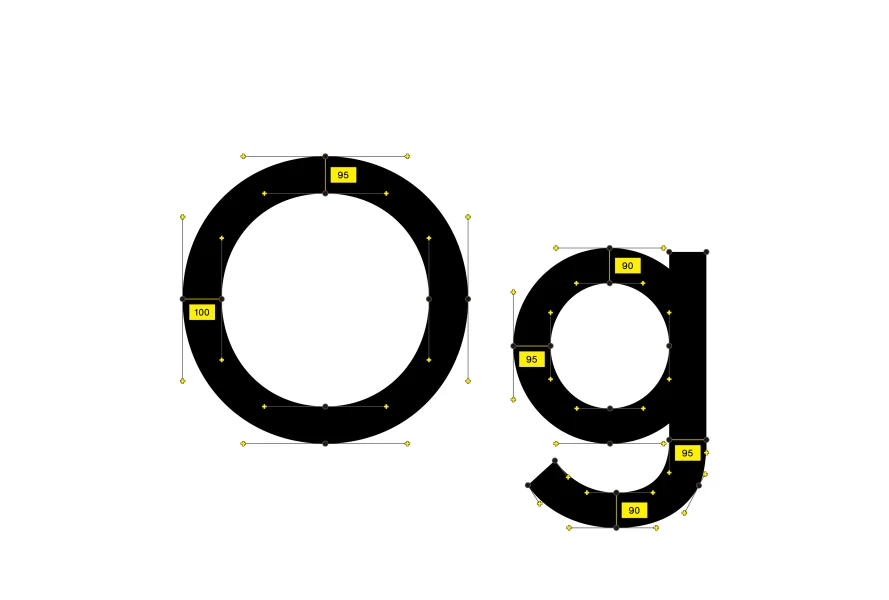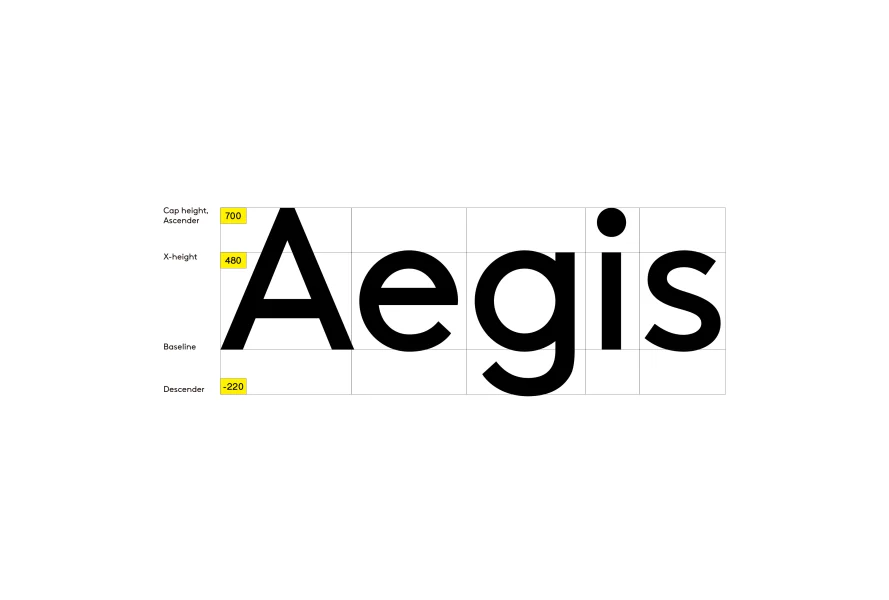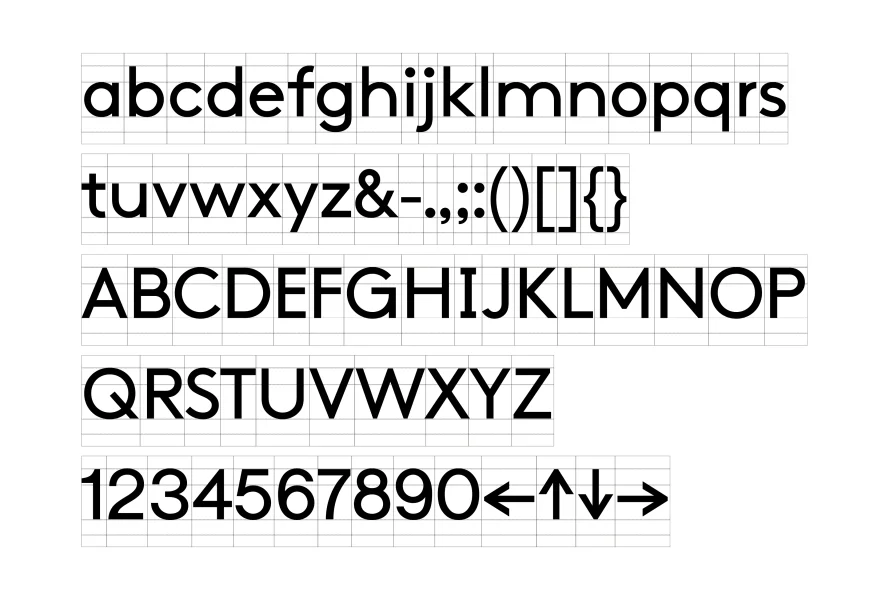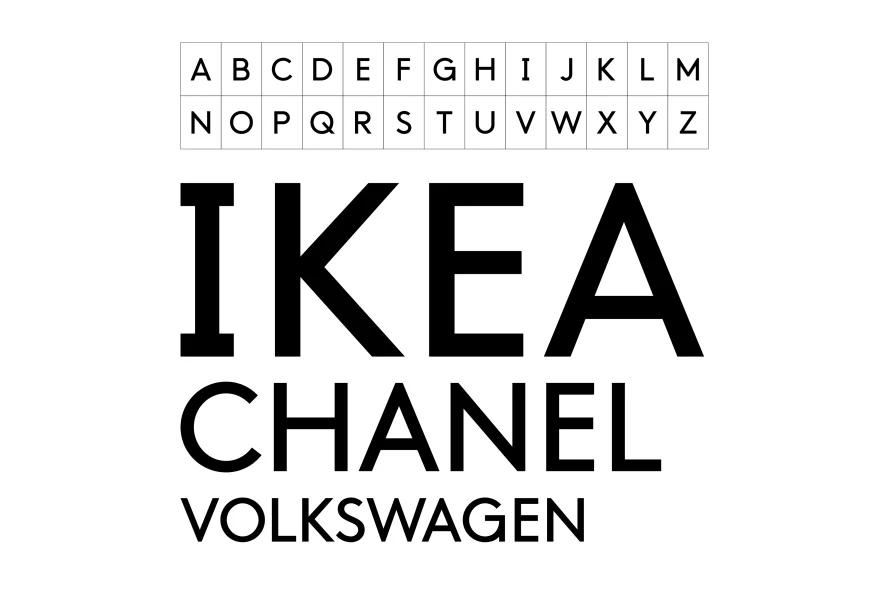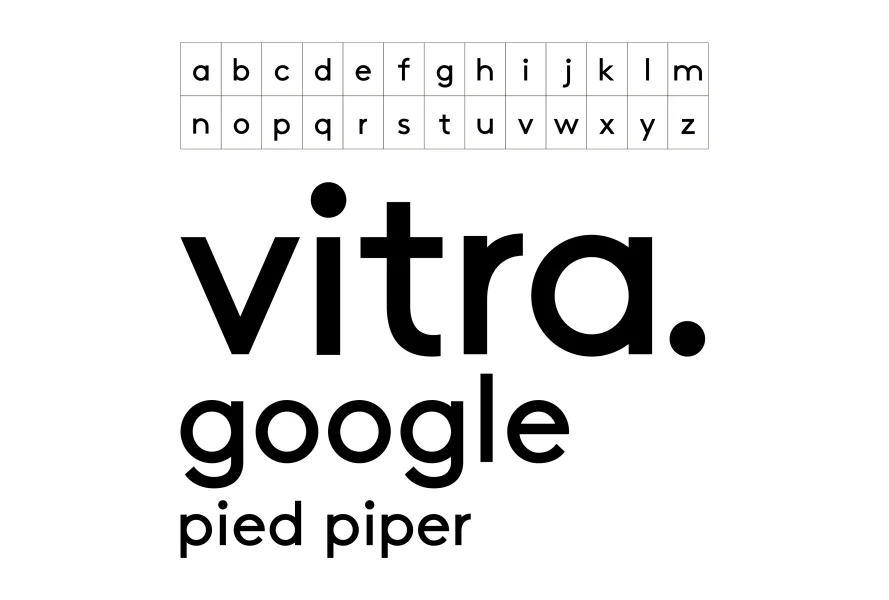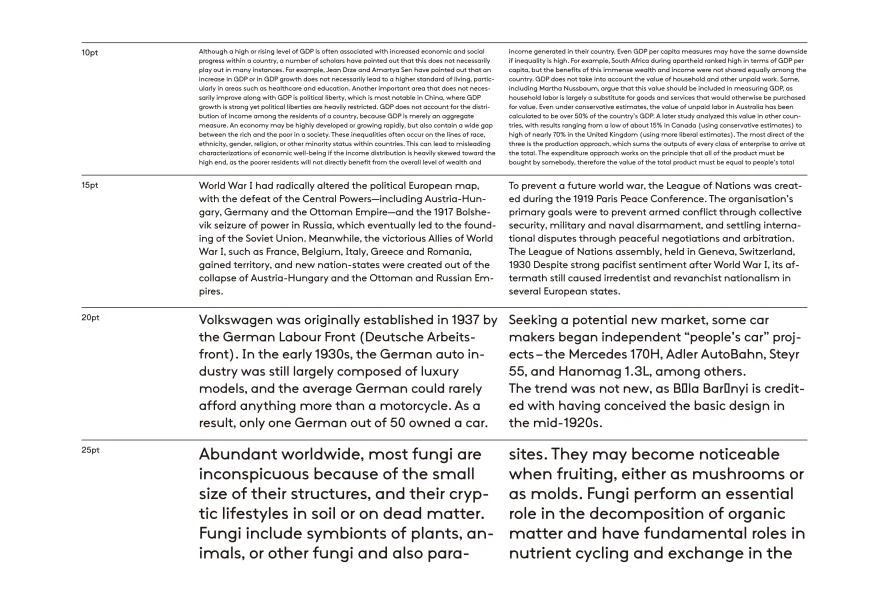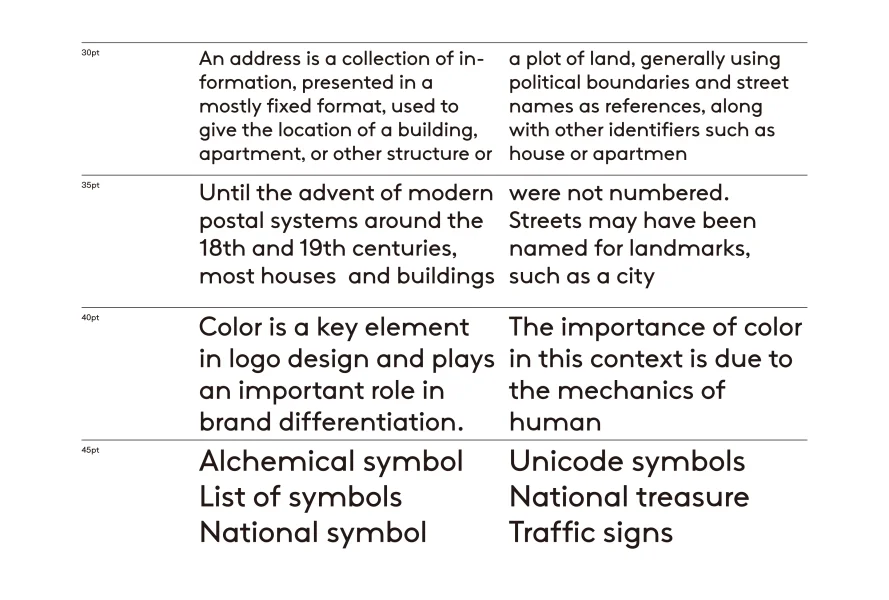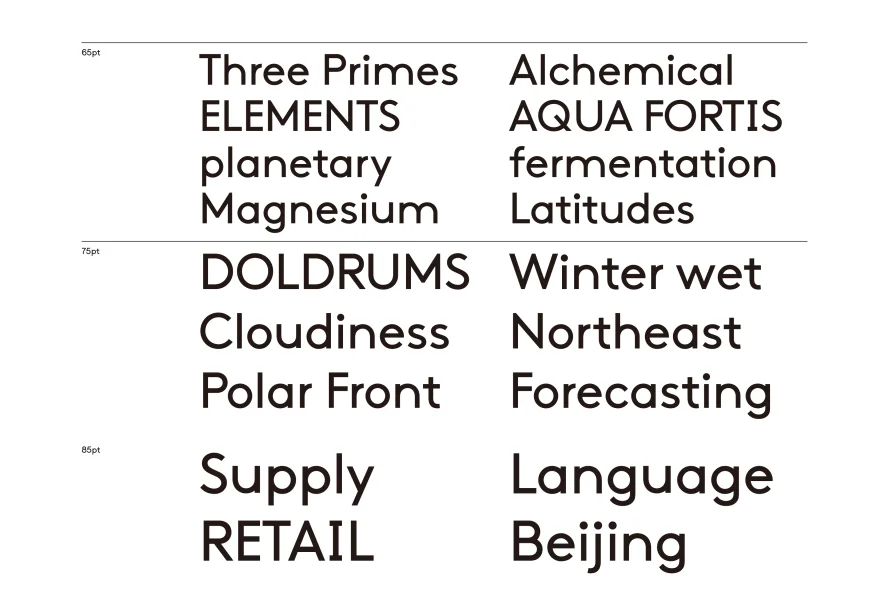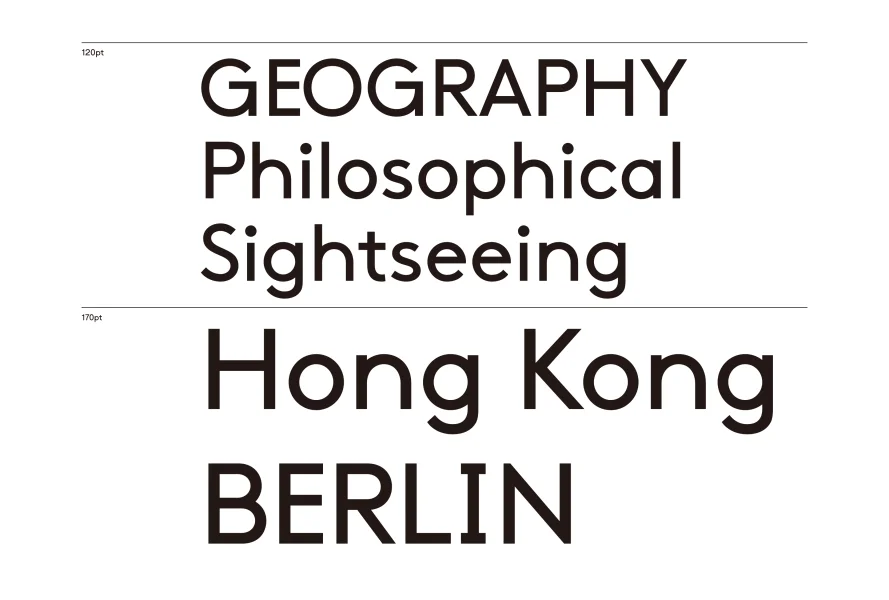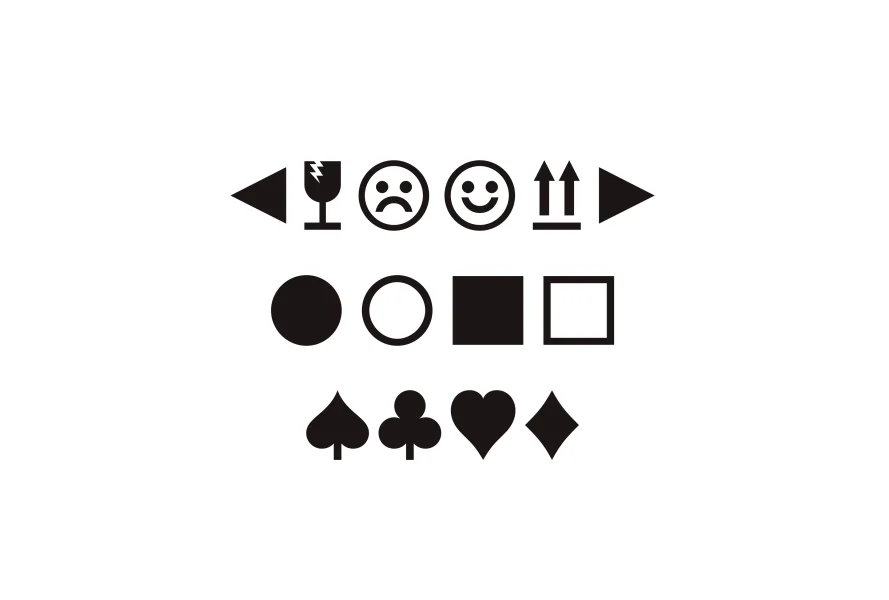
While we were making the community named Fax, and preparing for the independence, not as designers under a company, we prepared the planning/design/development processes of the exclusive Typography for Fax, using each of our spare time for about a year. We spent three months to design / produce it hoping that Fax would contain various people and various values while clearly keeping the value that I want it to have in the future.
To carefully display Fax in the lunching issue, I designed it worthily with the hope that it will be the base of Fax.
I want many people to freely experience out font and also want it to be the opportunity to introduce us.
The font is like a the material with a high quality that delivers the same look wherever it is used, whether it is an activity , a design, a branding, or a product, in its path in the future. Thus, we directed the graphic and design of Typography very worthily, and we will begin and end every Fax activities with Fax sans in the future.